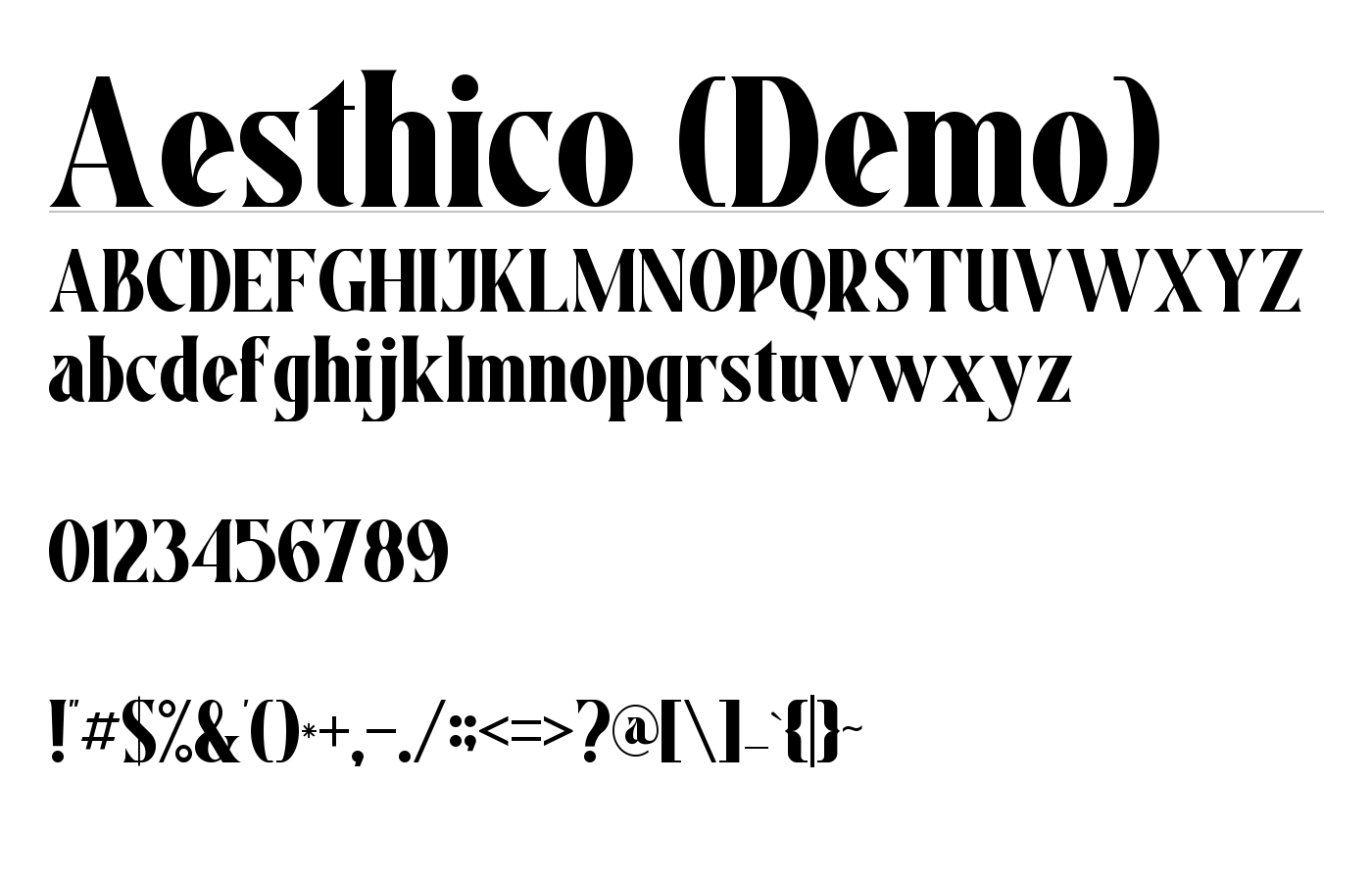
Aesthico (Demo) is a bold serif typeface with a strong contrast between thick and thin strokes, featuring sharp, elegant serifs and distinctive letterforms that combine modern sophistication with a touch of vintage charm. Its condensed width and high x-height make it ideal for striking headlines and logos, lending a luxurious and authoritative feel to fashion, editorial, and branding projects. This font works best in applications where impact and style are key, thanks to its refined yet powerful presence.
Aesthico (Demo) Font